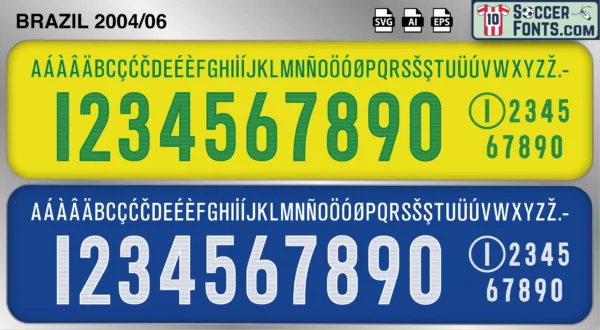
Brazil 2004-06 Font
The Brazil 2004-06 font is an editable soccer jersey lettering design in vector format inspired by the Brazil kit style used during the 2004-06 football seasons. This football font artwork is prepared for football shirt recreations, custom jersey projects, football kit mockups and sports graphic design workflows.
The 2004-06 era featured one of the most talented squads ever assembled by the Brazilian national team. Following success in the 2005 FIFA Confederations Cup, Brazil entered the 2006 FIFA World Cup in Germany as one of the tournament favorites. The squad included legendary players such as Ronaldinho, Ronaldo, Adriano, Kaká, Cafu, Roberto Carlos and Robinho, creating an attacking lineup that generated enormous expectations among supporters around the world. During this period, Brazil remained a dominant force in international football and continued showcasing the technical style and football culture that had become synonymous with the national team.
The Brazil 2004-06 font became associated with the famous “Magic Quartet” era and one of the most discussed World Cup cycles in modern football history. Brazil shirts from this period remain especially popular among football shirt collectors because of their connection with iconic players, memorable international tournaments and the peak popularity of mid-2000s football culture. The Brazil 2004-06 font is closely linked with the anticipation surrounding the 2006 World Cup and a generation of football stars who helped define an era of global football fandom, making it one of the most recognizable periods in the history of the Brazilian national team.